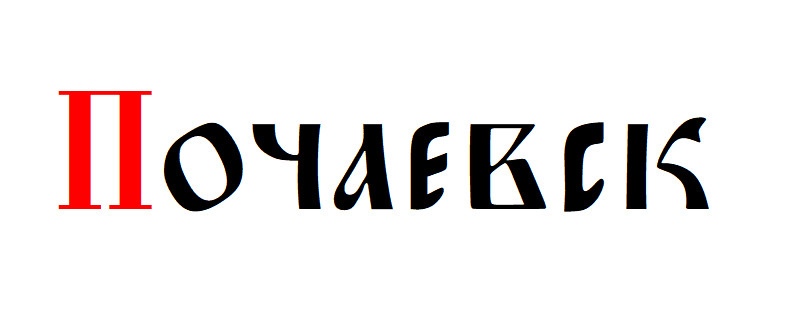
Pochaevsk Unicode Font
Pochaevsk Unicode Font is perfect for Orthodox monastery branding, Ukrainian Orthodox communications, Slavonic liturgical publishing, Eastern Christian educational materials, monastic community documents, religious pilgrimage marketing, Orthodox seminary publications, and sacred tradition advertising. This monastic typeface works magnificently in both digital applications and print media where Orthodox monasticism and Ukrainian religious heritage are fundamental design requirements.
What makes Pochaevsk Unicode Font so exciting is its profound interpretation of monastic tradition and Orthodox spirituality through sacred letterforms that seem blessed with the same devotional spirit and contemplative wisdom that has emanated from the Holy Dormition Pochaev Lavra for centuries. The font features monastic characters with contemplative proportions, spiritual curves, and sacred details that evoke the peaceful devotion of Orthodox monasteries and the profound spiritual heritage of Ukrainian Orthodox Christianity. Its contemplative personality and monastic heritage make it ideal for Orthodox institutions seeking to communicate spiritual authenticity while appealing to faithful communities who cherish the contemplative traditions and monastic wisdom of Eastern Christianity.
The Pochaevsk Unicode Font family includes comprehensive Unicode support for Ukrainian Orthodox texts with different spiritual intensities, along with monastic alternates and Orthodox ornamental elements. Each style maintains the typeface's sacred character while offering extensive character sets including Church Slavonic letters, Ukrainian Cyrillic script, monastic numerals, Orthodox punctuation marks, and special symbols designed to enhance religious communications and monastic branding efforts across various contemplative contexts.
This extraordinary typeface represents the perfect fusion of monastic tradition and contemporary religious functionality for Orthodox monasteries and spiritual institutions. Whether you're developing monastery identities, creating Orthodox educational materials, or designing pilgrimage site promotions, Pochaevsk Unicode Font Free Download provides the monastic authenticity and versatility needed to serve Orthodox communities seeking spiritual depth. The font's monastic appeal makes it particularly effective for Orthodox monasteries, Ukrainian Orthodox parishes, religious education centers, and institutions celebrating the contemplative wisdom and spiritual heritage of Eastern Orthodox monasticism.
The meticulously crafted monastic details and optimized contemplative performance in Pochaevsk Unicode Font ensure both spiritual authenticity and clear communication across all Orthodox applications. Its contemplative presence makes it perfect for monastic branding, Orthodox educational materials, and spiritual communications where its full sacred character can create meaningful connections with faithful communities seeking the peaceful wisdom, contemplative depth, and authentic spiritual experience of Orthodox monastic tradition.